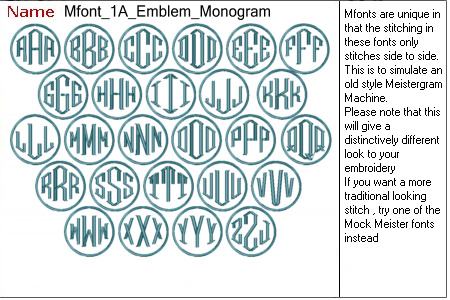
MFont_1A_Emblem
Similar to the other Mfont 1 fonts, this version contains a circlular frame around the capital letters.
This font simulates the stitching of a Zig-Zag Meistergram Monogramming Machine. Please note that the stitch appearance will be quite different than traditional lock stitch embroidery
Style : Puffy Font